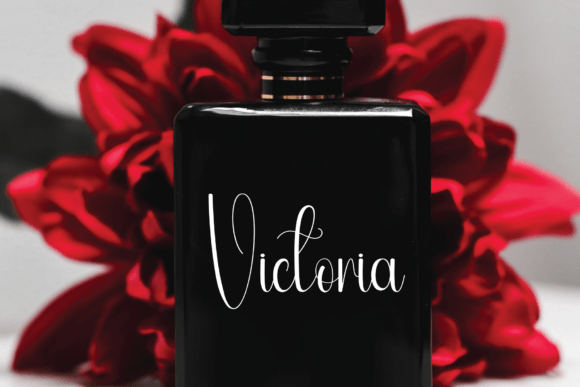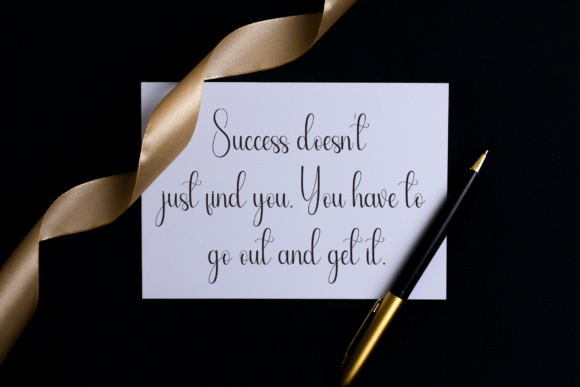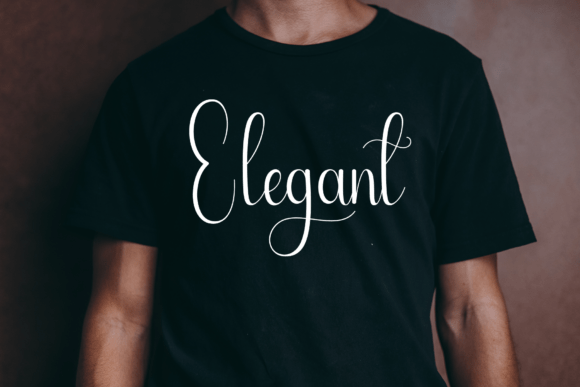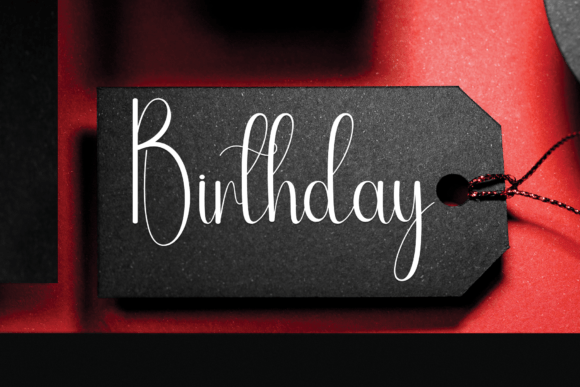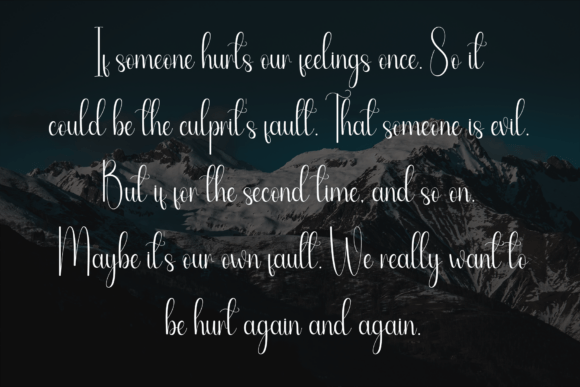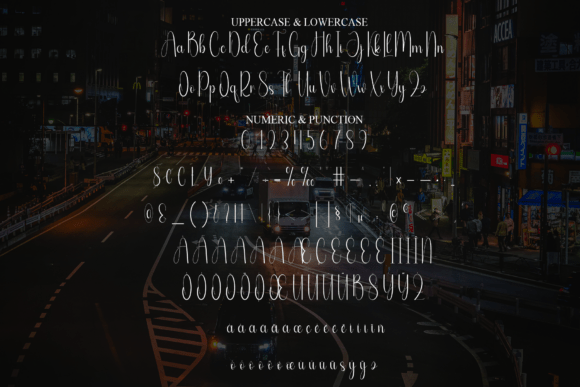
Introducing Citynight Font: Elevate Your Designs with Elegance and Fluidity
In the world of typography, fonts play a crucial role in conveying the tone and personality of a brand, product, or creative project. For designers and crafters seeking a typeface that exudes sophistication, charm, and modernity, Citynight Font is an exceptional choice. This stylish handwritten script font is designed to radiate elegance and fluidity, making it perfect for a wide range of applications, from branding and invitations to creative projects and marketing materials.
The Characteristics of Citynight Font
Citynight Font boasts smooth, flowing strokes that create a natural and sophisticated feel. Its elegant and refined appearance is characterized by:
- Fluid strokes: The font’s smooth, connected letters create a sense of movement and fluidity, giving it a dynamic and artistic feel.
- Elegant letterforms: Each letter is carefully crafted to convey a sense of sophistication and refinement, making Citynight Font perfect for high-end branding and luxury projects.
- Charming and modern: The font strikes a perfect balance between classic charm and modernity, ensuring it remains versatile and relevant for various design applications.
Perfect for Branding, Invitations, and Creative Projects
Citynight Font’s versatility makes it an excellent choice for a wide range of design projects, including:
- Branding: Establish a strong brand identity with Citynight Font’s elegant and sophisticated appearance, perfect for luxury brands, fashion labels, and high-end products.
- Invitations: Create stunning invitations for special occasions, such as weddings, galas, and corporate events, with Citynight Font’s refined and elegant style.
- Creative projects: Add a personal, artistic touch to your creative projects, including artwork, illustrations, and graphic designs, with Citynight Font’s unique and charming letterforms.
Why Choose Citynight Font?
With Citynight Font, designers and crafters can enjoy numerous benefits, including:
- Unique and distinctive: Citynight Font’s elegant and refined appearance sets it apart from other typefaces, ensuring your designs stand out from the crowd.
- High-quality and versatile: The font’s smooth, flowing strokes and charming letterforms make it suitable for various design applications, from digital to print.
- Easy to use: Citynight Font is designed to be user-friendly, allowing designers to easily integrate it into their projects and workflows.
Tips for Using Citynight Font Effectively
To get the most out of Citynight Font, consider the following tips:
- Pair with complementary fonts: Combine Citynight Font with complementary typefaces to create a harmonious and visually appealing design.
- Experiment with colors and textures: Add depth and interest to your designs by experimenting with different colors and textures that complement Citynight Font’s elegant style.
- Use it sparingly: Citynight Font’s elegance and sophistication can be overwhelming if overused. Use it sparingly to create a strong visual impact.
Citynight Font is a stylish and elegant handwritten script font that offers a unique blend of sophistication, charm, and modernity. Its smooth, flowing strokes and refined letterforms make it perfect for branding, invitations, and creative projects. With its versatility, high-quality design, and ease of use, Citynight Font is an excellent choice for designers and crafters seeking to elevate their designs and add a personal, artistic touch.
Whether you’re a seasoned designer or a crafty DIY enthusiast, Citynight Font is sure to inspire and empower you to create stunning designs that leave a lasting impression.